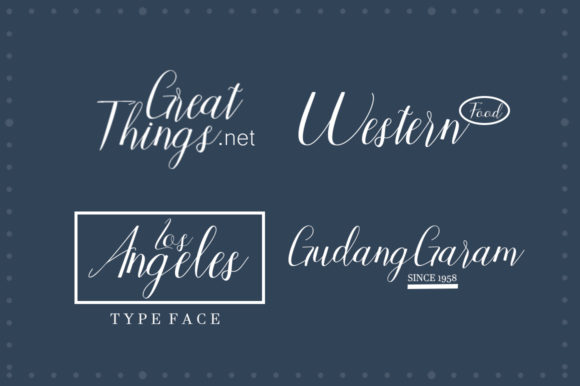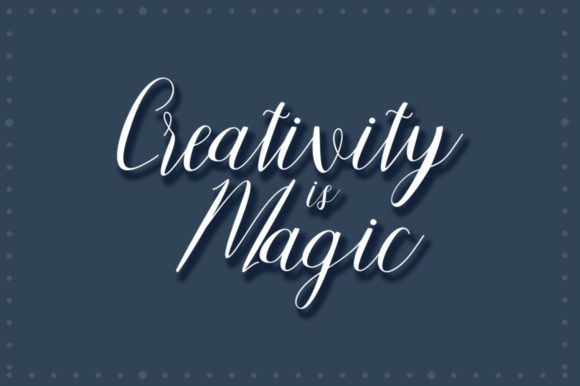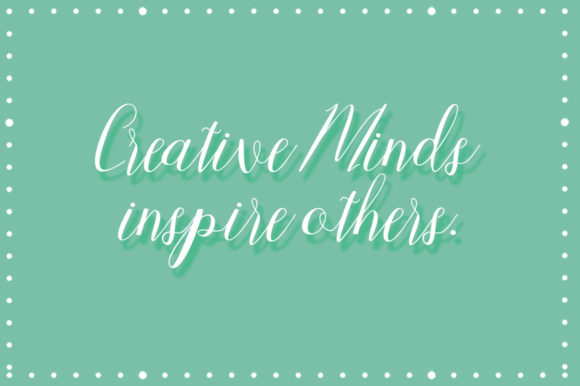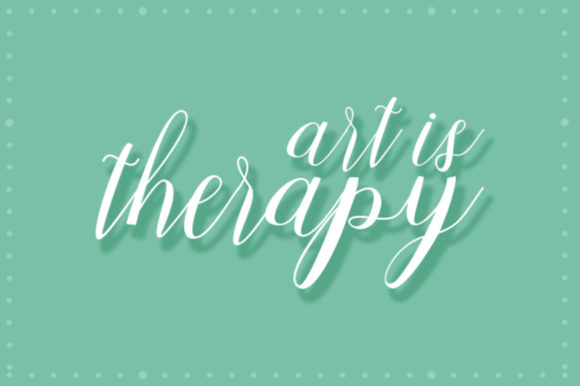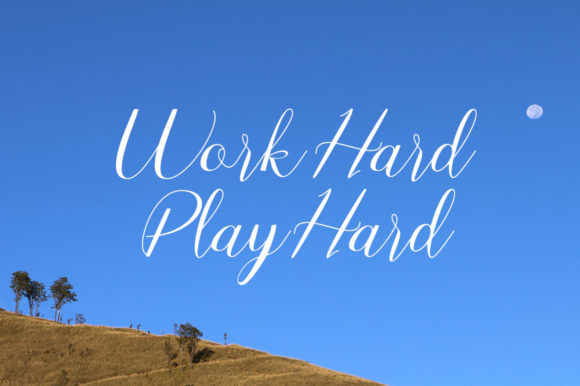
Discover the Elegance of Bailey Font: A Comprehensive Guide
Are you a designer or crafter looking for a font that can elevate your creative projects? Look no further than the Bailey Font, a lovely and flowing handwritten font that is sure to capture your heart. In this article, we’ll dive into the features and benefits of the Bailey Font, and explore how you can use it to create stunning designs.
What is Bailey Font?
Bailey Font is a beautiful, handwritten font that boasts a unique and elegant style. Its flowing lines and varying baseline give it a natural, organic feel that is perfect for a wide range of design projects. Whether you’re creating a logo, crafting a social media post, or designing a website, the Bailey Font is sure to add a touch of sophistication and class.
Key Features of Bailey Font
So, what makes the Bailey Font so special? Here are just a few of its key features:
- Varying Baseline: The font features a varying baseline, which gives it a natural, handwritten feel. This means that your text will have a organic, imperfect look that is perfect for creating a sense of warmth and personality.
- Smooth Lines: The Bailey Font boasts smooth, flowing lines that are a joy to look at. This makes it perfect for creating designs that require a high level of elegance and sophistication.
- Gorgeous Glyphs: The font comes with a range of gorgeous glyphs, including stunning alternates and swashes. This means that you can add a touch of personality to your text and create truly unique designs.
Using Bailey Font in Your Designs
So, how can you use the Bailey Font in your designs? The possibilities are endless! Here are a few ideas to get you started:
- Logos and Branding: The Bailey Font is perfect for creating logos and branding materials that require a high level of elegance and sophistication.
- Social Media Graphics: Use the Bailey Font to create stunning social media graphics that will help you stand out from the crowd.
- Web Design: The font is perfect for use in web design, where its flowing lines and elegant style can help to create a sense of warmth and personality.
- Crafting and Scrapbooking: The Bailey Font is also perfect for crafters and scrapbookers who want to add a touch of elegance to their projects.
Tips for Getting the Most Out of Bailey Font
Here are a few tips for getting the most out of the Bailey Font:
- Experiment with Different Sizes: The Bailey Font looks great in a range of sizes, from small and delicate to large and bold. Experiment with different sizes to find the one that works best for your design.
- Play with Glyphs and Swashes: The font comes with a range of gorgeous glyphs and swashes. Experiment with different combinations to add a touch of personality to your text.
- Pair it with Other Fonts: The Bailey Font pairs well with a range of other fonts. Experiment with different combinations to find the one that works best for your design.
In conclusion, the Bailey Font is a beautiful, elegant font that is perfect for designers and crafters who want to add a touch of sophistication to their projects. With its flowing lines, varying baseline, and gorgeous glyphs, it’s the perfect choice for a wide range of design projects. Whether you’re creating a logo, crafting a social media post, or designing a website, the Bailey Font is sure to help you create stunning designs that will capture your audience’s attention.